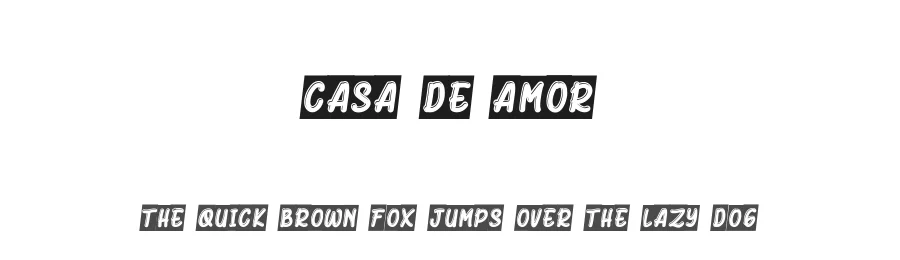
About Icebox Art Font
Icebox Art is a decorative font designed by Iconian Fonts. It includes 92 glyphs, a regular weight, TTF (TrueType) format, and 107 languages. Icebox Art is free to download; check the license details on this page before commercial use. Decorative fonts like Icebox Art work best for logos, posters, packaging, and standout headlines.
| Font Family | Icebox Art |
| Full Name | Icebox Art Regular |
| Designer | Daniel Zadorozny |
Icebox Art Font is a decorative font that shines as a display or heading face. Pair it with a clean sans-serif or serif font for body text β the contrast creates a clear hierarchy while the two styles stay balanced and easy to read.
Icebox Art Font
Icebox Art Font is a decorative typeface by Iconian Fonts, ideal for logos, invitations, branding, and creative projects.